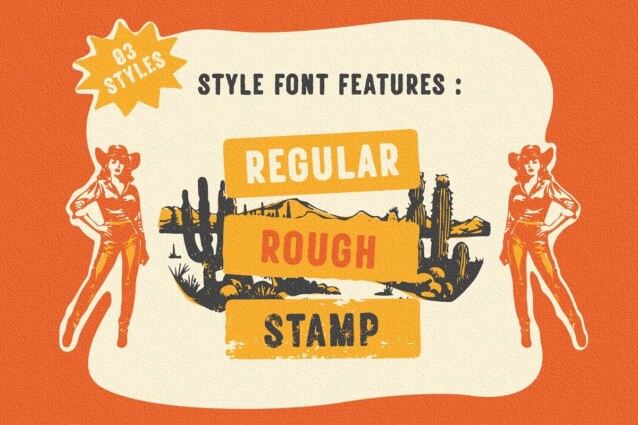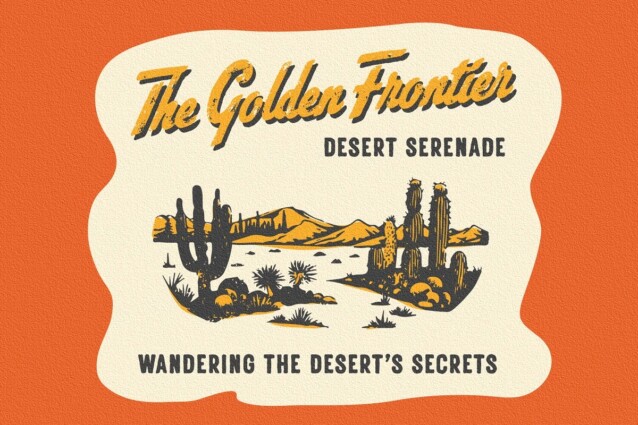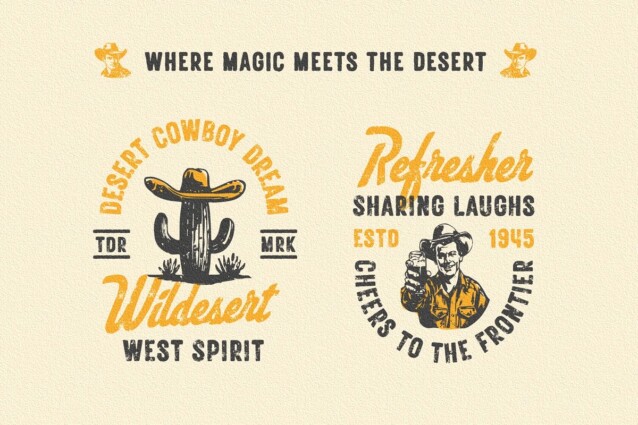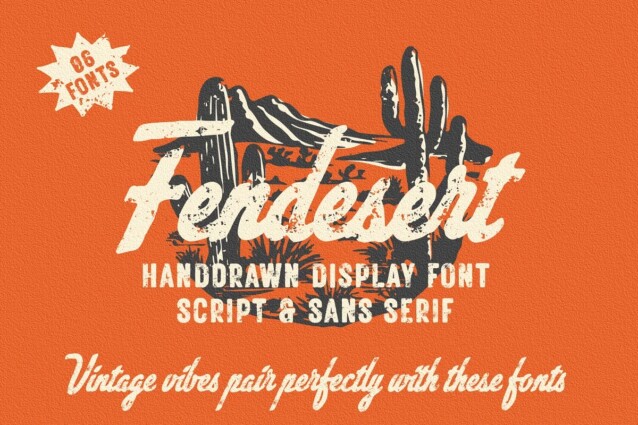
Fendesert Font
Fendesert Font is a vintage display font duo with a classic touch and vintage feel that creates a nostalgic atmosphere. This collection features a pair script and san serif font in regular, rough, and stamp styles. Plus, you get 20 hand-drawn western illustrations for added creativity. Perfect for logos, branding, apparel, and more. Unlock vintage charm with Fendesert.